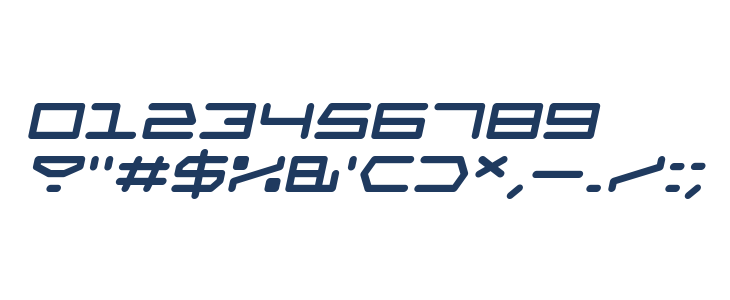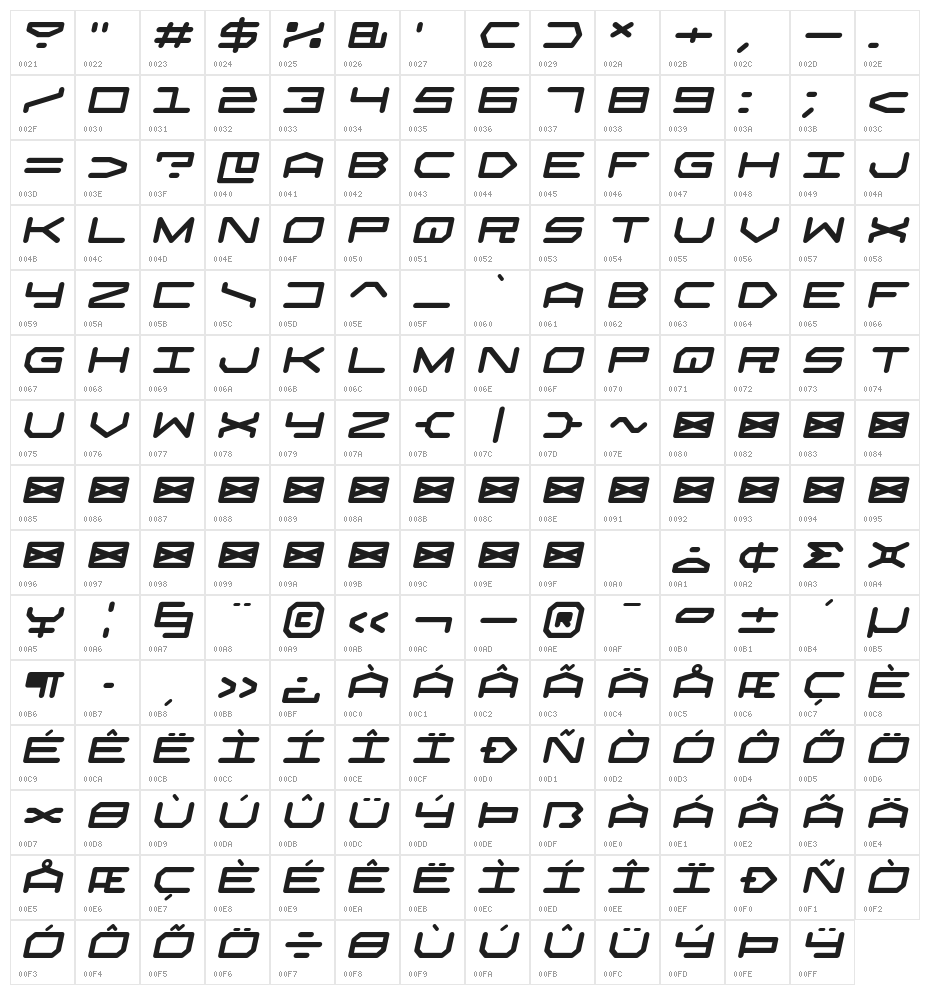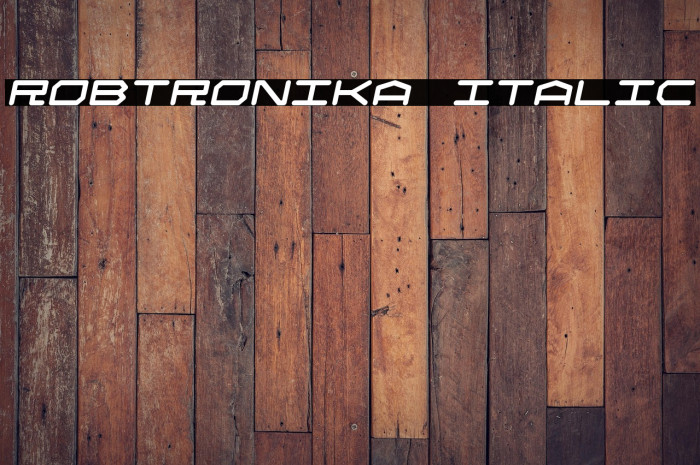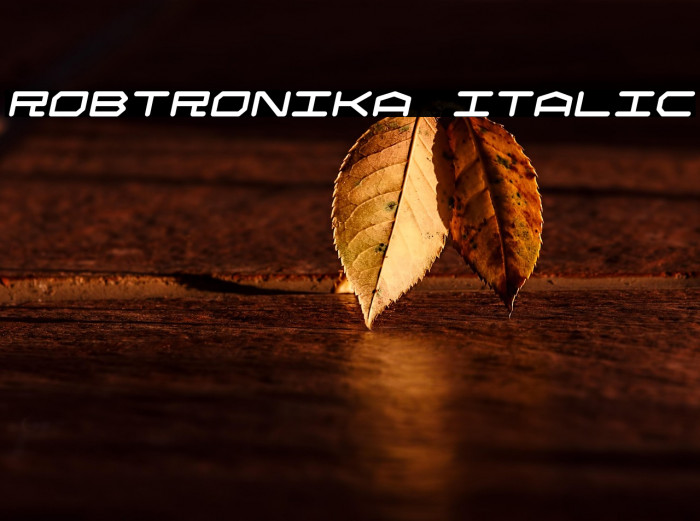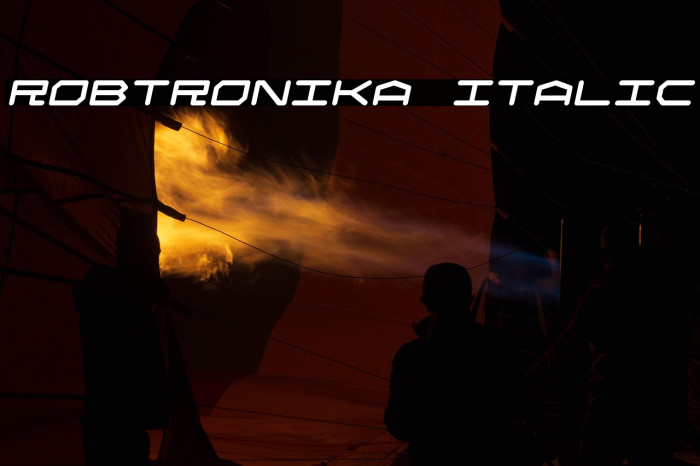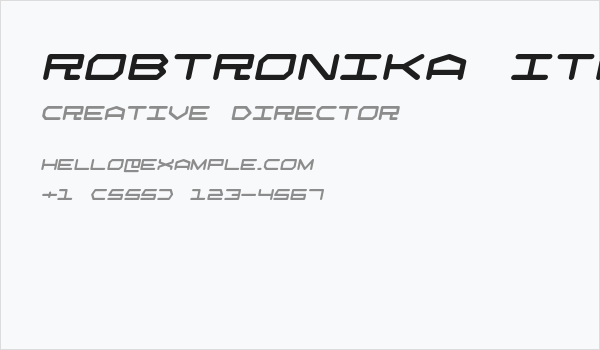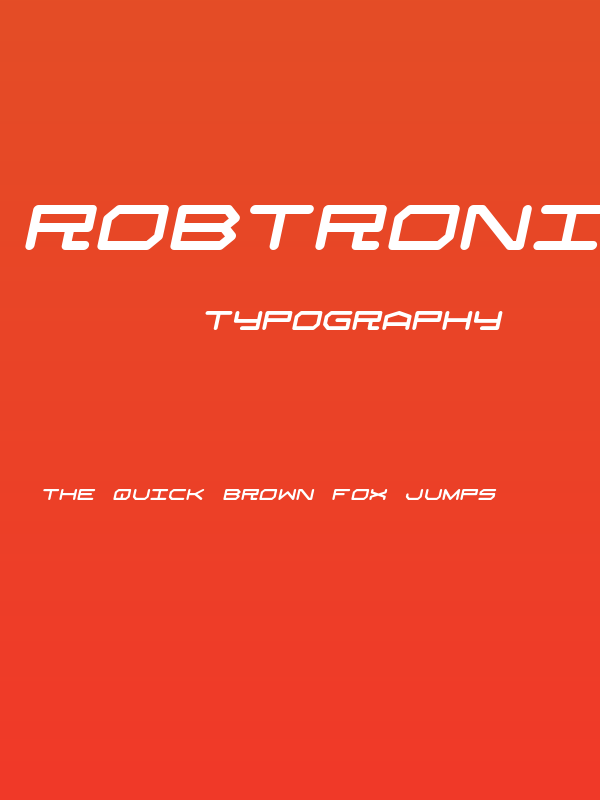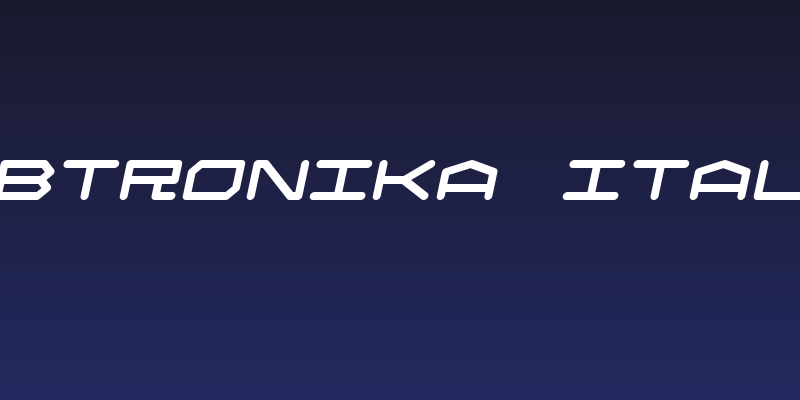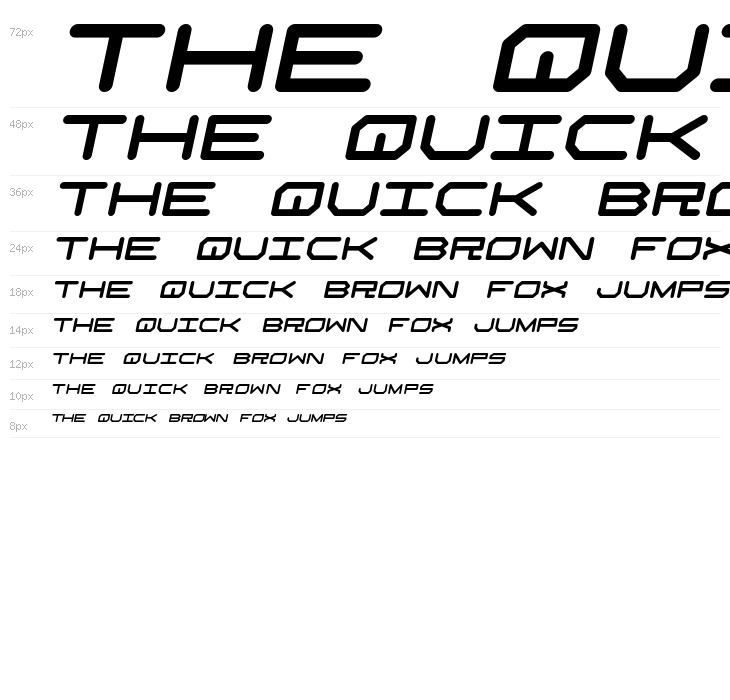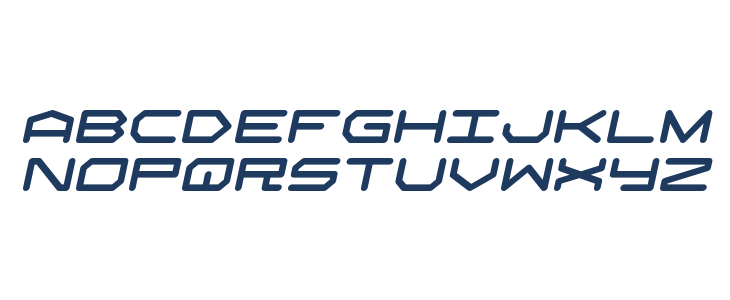
Robtronika Italic Font
Robtronika Italic Description
This font features a futuristic and geometric design with a distinct italic slant, giving it a dynamic and forward-moving appearance. The characters are constructed with clean, straight lines and rounded corners, creating a sleek and modern look. The uppercase and lowercase letters maintain a consistent style, with a uniform height and width that enhances readability. The numerals and special characters follow the same design principles, ensuring a cohesive appearance across all glyphs. This font's unique style makes it suitable for projects that require a modern and technological aesthetic.
| Use Case | Headlines, Logos, Digital interfaces |
| Proposed Projects | Ideal for technology branding, sci-fi posters, video game titles, and digital interfaces. |